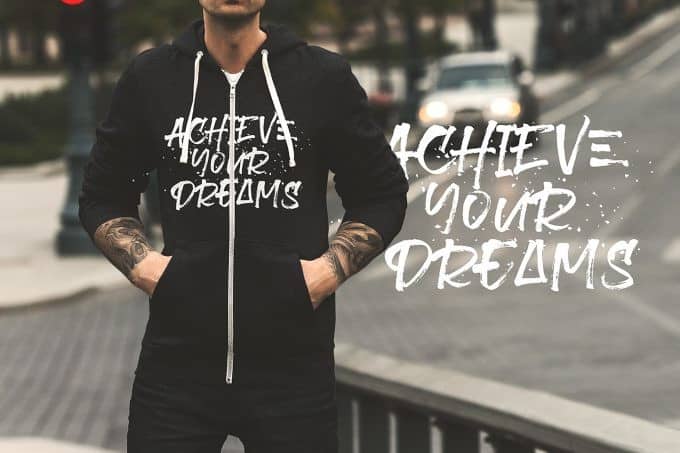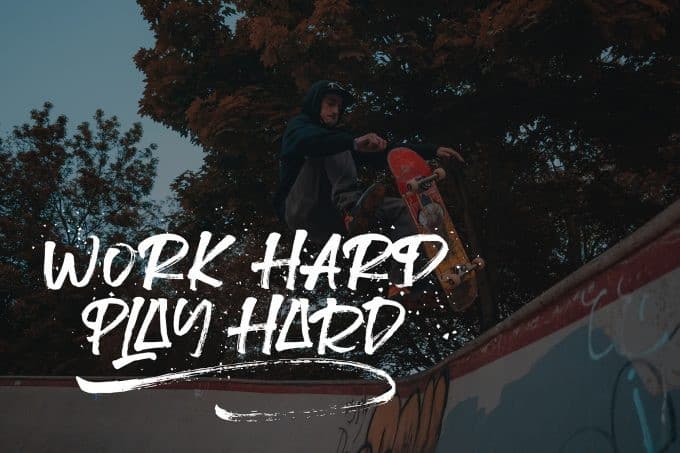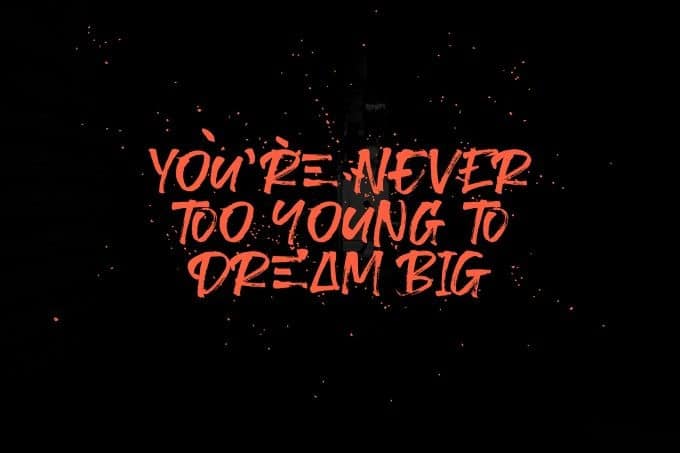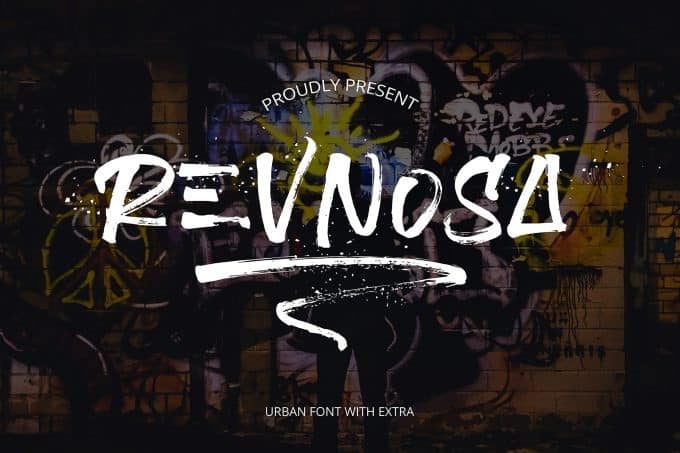
Revnosa Brush Font
Revnosa Brush Font – a textured SVG brush typeface. This type of font perfectly made to be applied especially in headlines which is need a standout font, and the other various formal forms. It’s designed and shared by peterdraw. A rustic, dapper handwritten font with a personal charm. With quick dry strokes and an urban style. Revnosa font is perfect for display projects such as quoted text, product name, t-shirt, street-style, product packaging and much more. It’s also perfect for stylish text overlay to any background image.